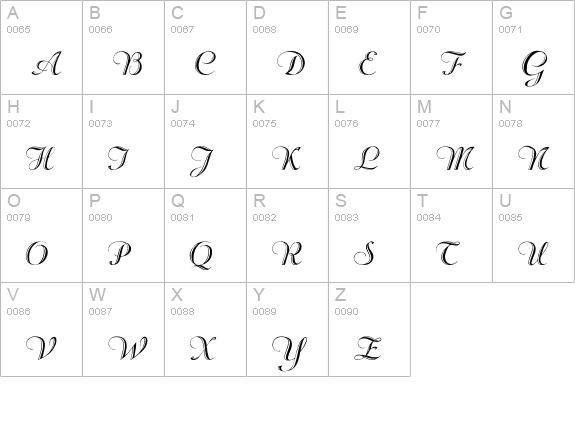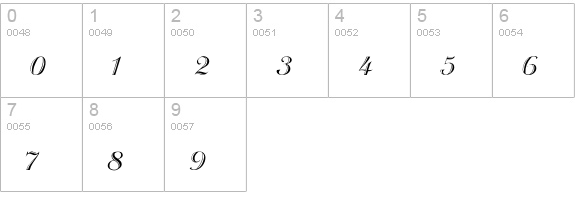
RecklmanHandTooled Font Details
RecklmanHandTooled font is a beautiful and versatile typeface that exudes a sense of craftsmanship and uniqueness. This font is meticulously hand-tooled, giving it an authentic and intricate appearance that is sure to captivate any audience. With its bold and strong letterforms, RecklmanHandTooled font is perfect for headlines, logos, and posters, adding a touch of elegance and sophistication to any design. Its detailed and handcrafted look brings a sense of artistry and craftsmanship to any project, making it stand out from the crowd. One of the best things about RecklmanHandTooled font is that it is freely available to download at FontsMarket.com. This means that anyone can access and use this beautiful typeface without any cost or restrictions. Whether you are a professional designer or a creative enthusiast, RecklmanHandTooled font is a must-have in your font collection. The versatility of RecklmanHandTooled font allows it to be used in a wide range of design projects. From vintage-inspired designs to modern and contemporary layouts, this font seamlessly blends with various styles and aesthetics, making it a go-to choice for designers looking to add a touch of elegance and sophistication to their work. The attention to detail and the meticulous craftsmanship that went into creating RecklmanHandTooled font is evident in every curve and line. The strokes are perfectly balanced, giving the font a harmonious and pleasing appearance. The hand-tooled effect adds depth and dimension to each letter, creating a sense of texture that brings the font to life. Whether you are designing a logo, a poster, a website, or any other creative project, RecklmanHandTooled font is sure to make a lasting impression. Its unique and artistic look sets it apart from other fonts, making it a valuable addition to any designer's toolkit. In conclusion, RecklmanHandTooled font is a stunning and versatile typeface that adds a touch of elegance and sophistication to any design project. With its hand-tooled and intricate appearance, this font is sure to captivate and inspire. Best of all, it is freely available to download at FontsMarket.com, allowing anyone to access and use this beautiful font. So, why wait? Download RecklmanHandTooled font today and unleash your creativity!